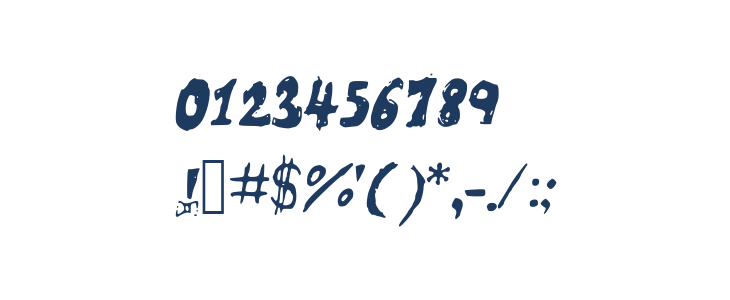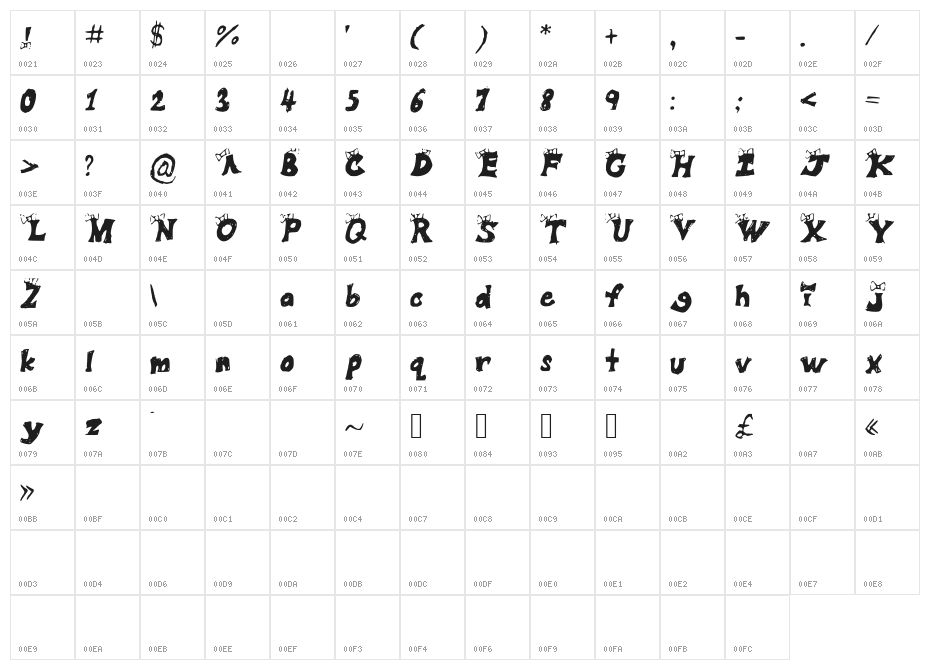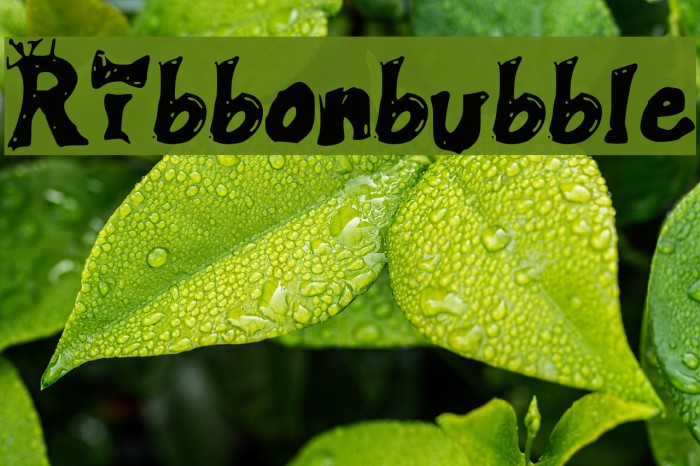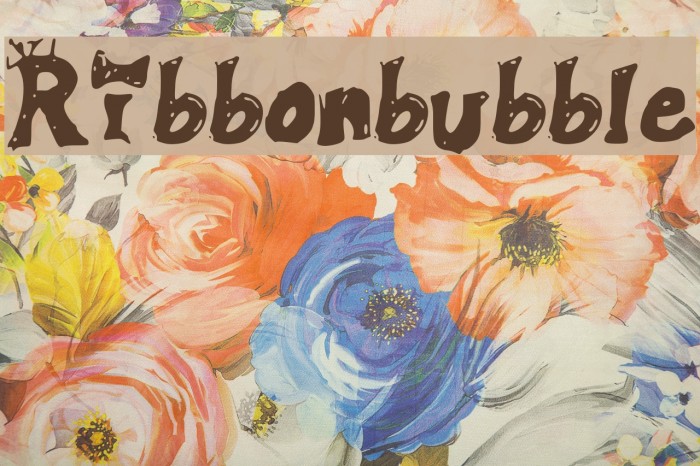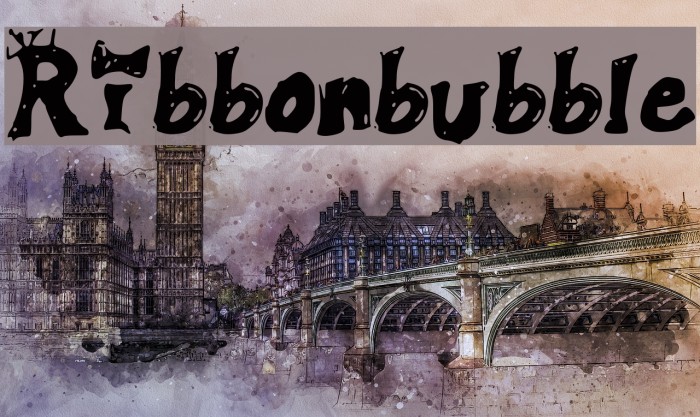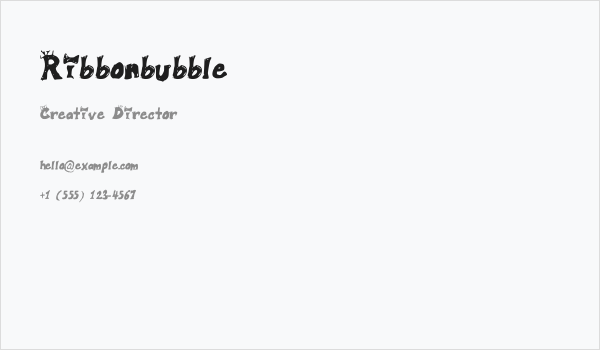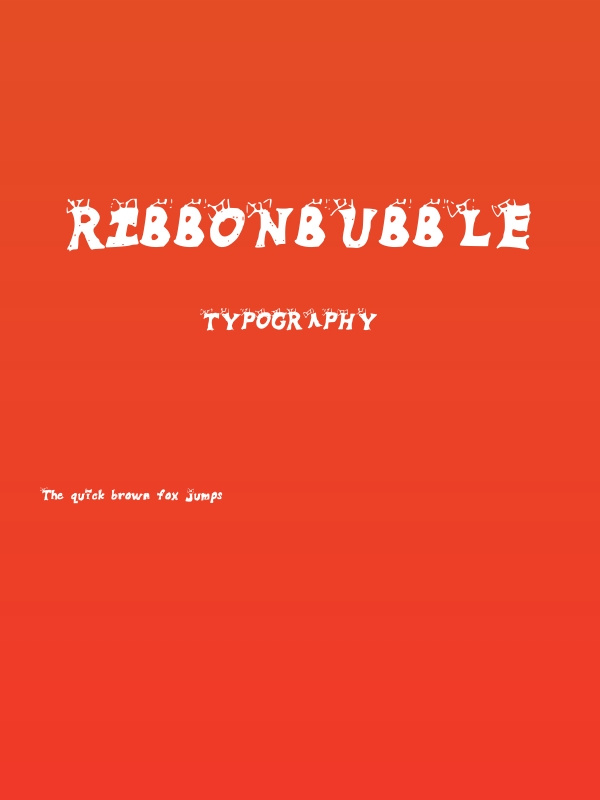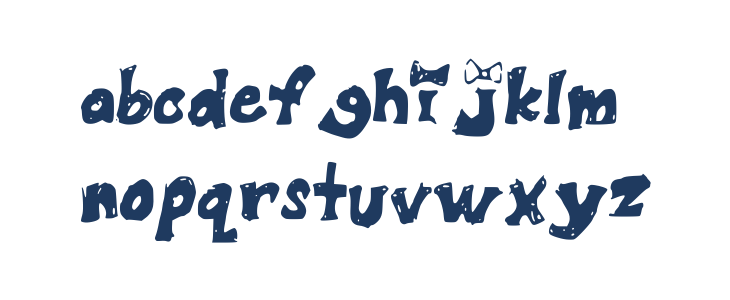
Ribbonbubble Font
Ribbonbubble Description
This playful and whimsical font features a unique design with each character adorned with a small ribbon, adding a touch of charm and creativity. The letters are bold and slightly irregular, giving them a hand-drawn appearance that is both fun and engaging. The font maintains a consistent thickness throughout, with rounded edges that enhance its friendly and approachable style. The inclusion of decorative elements like ribbons makes it ideal for projects that require a lighthearted and imaginative touch. Its distinct style is perfect for capturing attention and adding a sense of joy and playfulness to any design.
| Proposed Projects | Ideal for children's books, party invitations, playful branding, and creative posters. |